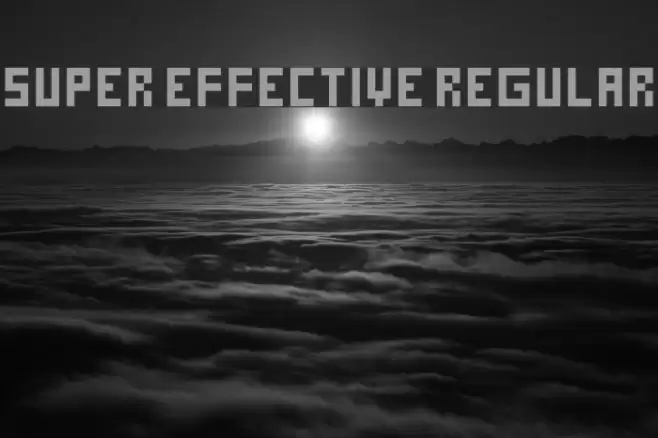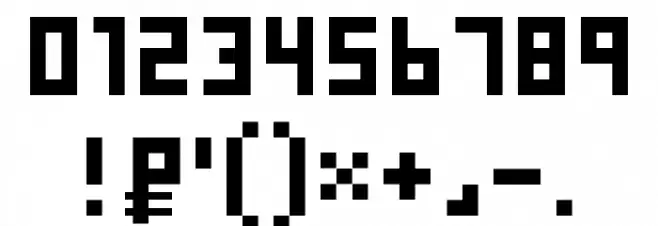
Super Effective Regular Font
Super Effective Regular Description
This font features a bold, geometric style with a pixelated, block-like appearance. Each character is constructed with straight lines and right angles, giving it a digital, retro aesthetic reminiscent of early video game graphics. The uniformity in stroke width across all characters contributes to a cohesive and structured look. The uppercase and lowercase letters maintain a consistent height, enhancing readability while preserving the font's unique style. Numbers and special characters are designed with the same pixelated approach, ensuring a seamless integration with the alphabetic characters. This font's distinct, modern design makes it ideal for projects that require a tech-savvy or nostalgic feel.
A bold, pixelated font with a retro, digital aesthetic from Uncategorized fonts.
- Proposed Projects: Ideal for video game designs, tech-themed posters, digital art, and retro-style branding.
- Overall Style: Retro, Digital